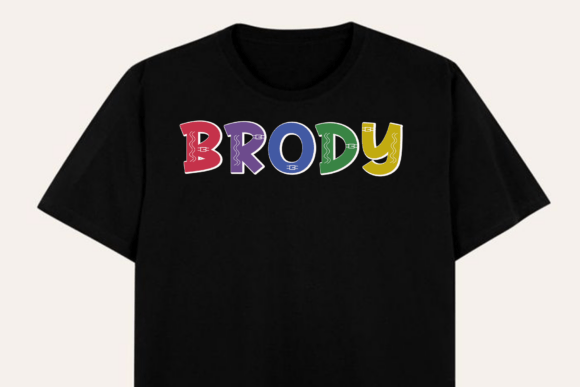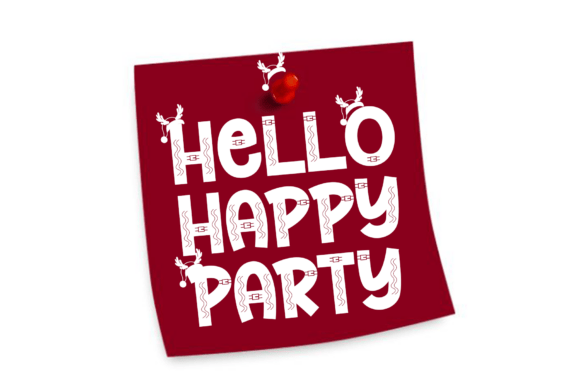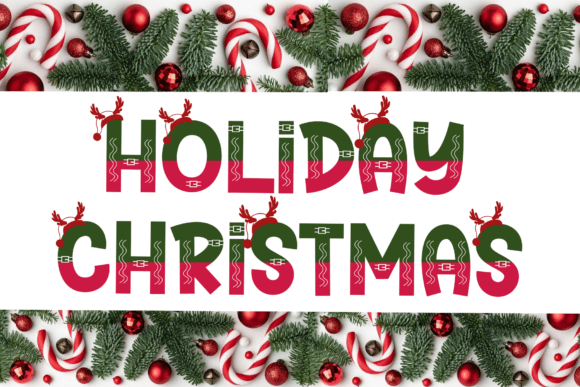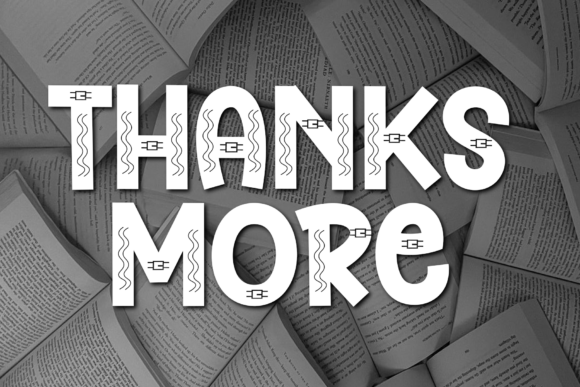
Introduction to Mr Santa Christmas Font
As you sit down to plan your holiday marketing campaign or create a festive social media post, you’re suddenly hit with a burst of inspiration: ‘What if I could add a dash of whimsy and magic to my design?’ It’s this exact spark that drives creatives to seek out unique and high-quality design resources, like the enchanting Mr Santa Christmas Font. This delightful font is more than just a pretty face – it’s a game-changer for designers looking to bring a touch of holiday cheer to their projects.
With its bold, all-caps structure and intricate decorative elements, the Mr Santa Christmas Font is perfect for party announcements, custom greeting cards, and seasonal merchandise. Its transparent background and free download make it an accessible design resource for creatives of all levels, whether you’re a seasoned pro or just starting out. Whether you’re looking to add a dash of fun to a project or create a truly memorable title, this font is sure to bring a smile to your face and a touch of holiday magic to your design.
Key Features of Mr Santa Christmas Font
- High-quality design resource perfect for creative projects, especially during the holiday season.
- Features a transparent background, allowing for easy customization and blending with various backgrounds.
- Features a unique, festive design, making it ideal for Christmas-themed projects, gift tags, and holiday cards.
- Includes a range of characters, including uppercase and lowercase letters, numbers, and special symbols.
- Designed with a clear and legible font style, making it suitable for both digital and print projects.
Honest Review: Mr Santa Christmas Font
As a designer, I’m always on the lookout for high-quality design resources to enhance my creative projects. The Mr Santa Christmas Font is one such resource that caught my eye. I decided to give it a try and see if it lives up to its promise.
Here are some of the things that work well with this font:
- ✨ Unique and festive design that perfectly captures the Christmas spirit
- ✨ High-quality vectors that can be easily resized without losing any details
- ✨ Transparent background, making it easy to use with different backgrounds
- ⚠️ Limited character set, which may not be ideal for longer texts
- ⚠️ May not be suitable for professional or formal designs
Tips for Getting the Most Out of Mr Santa Christmas Font
Use the font in combination with other design elements, such as images and graphics, to create a festive holiday design. Experiment with different font sizes and styles to add visual interest to your design. Consider using the font on a transparent background to add depth and dimension to your design.
The Mr Santa Christmas Font is a versatile design resource that can be used in a variety of creative projects, such as holiday cards, invitations, and social media graphics. It’s also a great resource for designers who want to create high-quality designs for clients or personal projects.